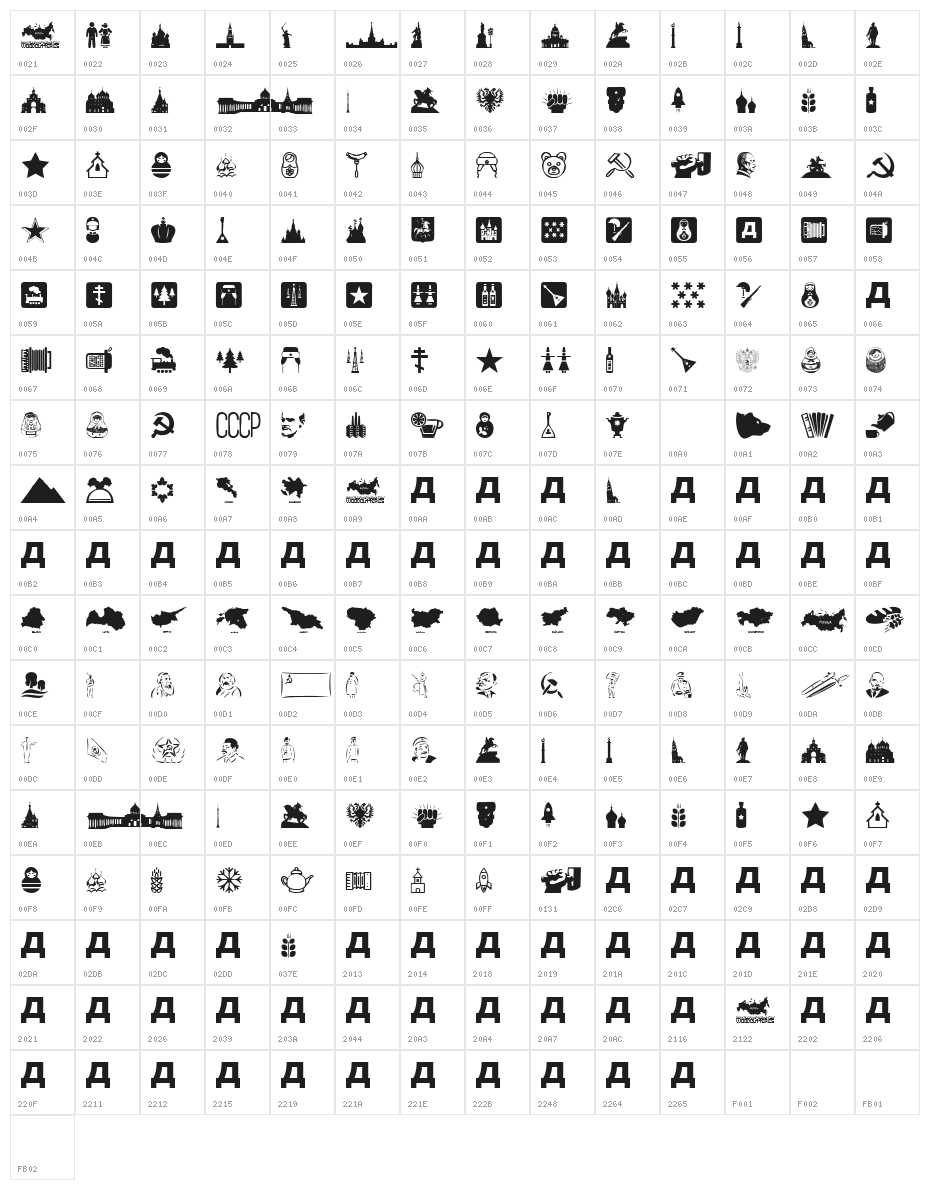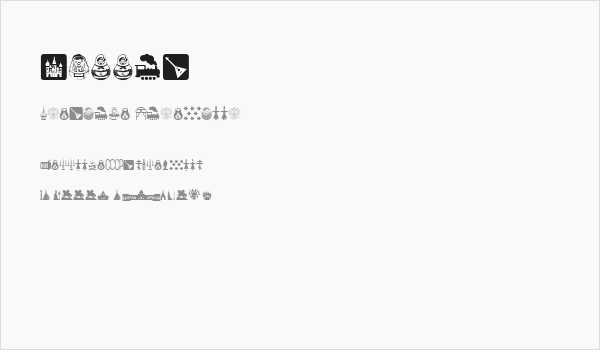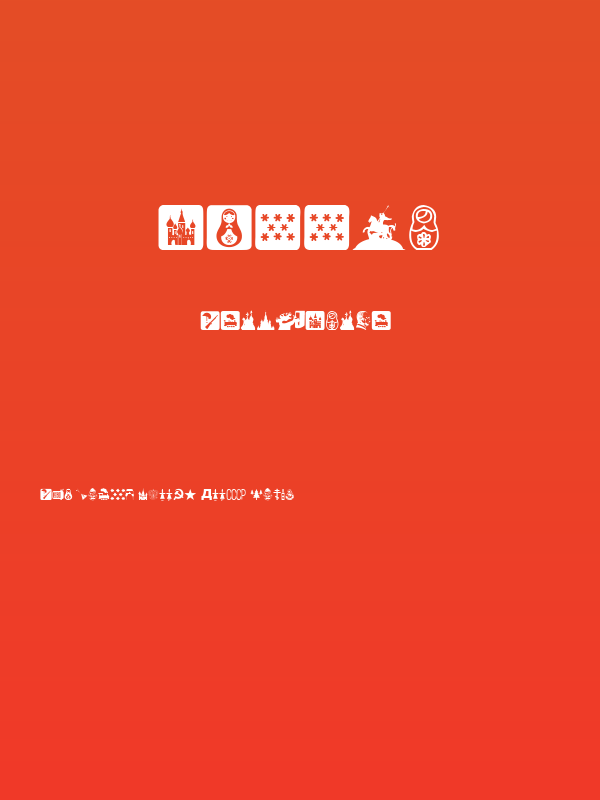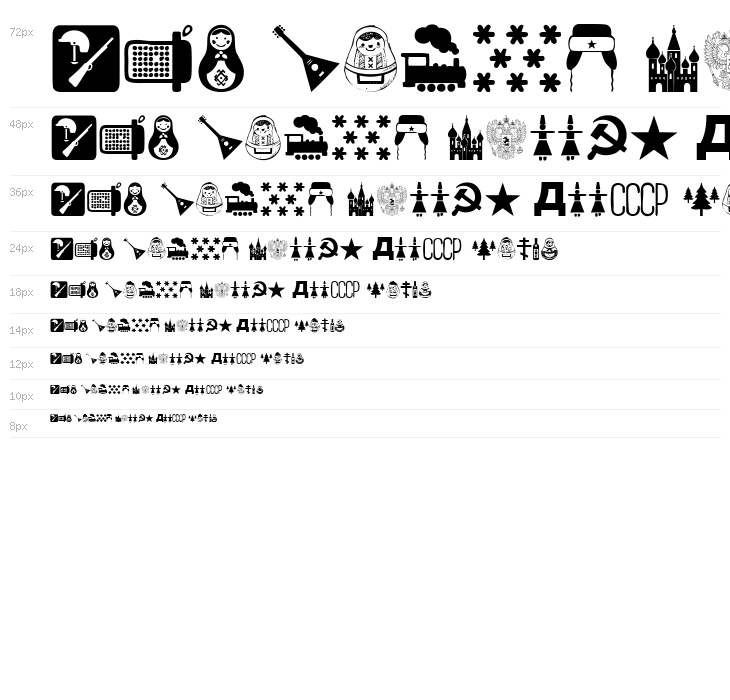
Russia Font
Russia Description
A decorative dingbat font featuring iconic Russian symbols, landmarks, and cultural motifs such as matryoshka dolls, Kremlin towers, balalaikas, Soviet emblems, and famous architecture, rendered in bold, high-contrast silhouettes.
| Overall Style | Decorative, Thematic, Bold |
| Use Case | Logos, Posters, Themed Graphics, Event Materials |
| Proposed Projects | Tourism branding, event posters, themed invitations, educational materials, cultural exhibitions, souvenir designs. |